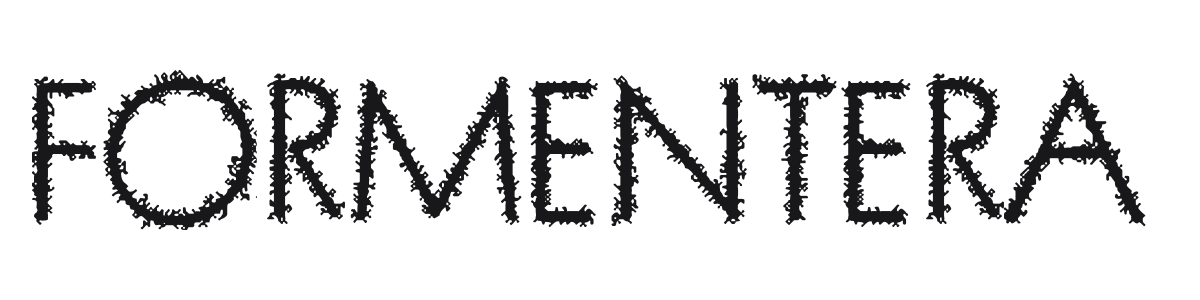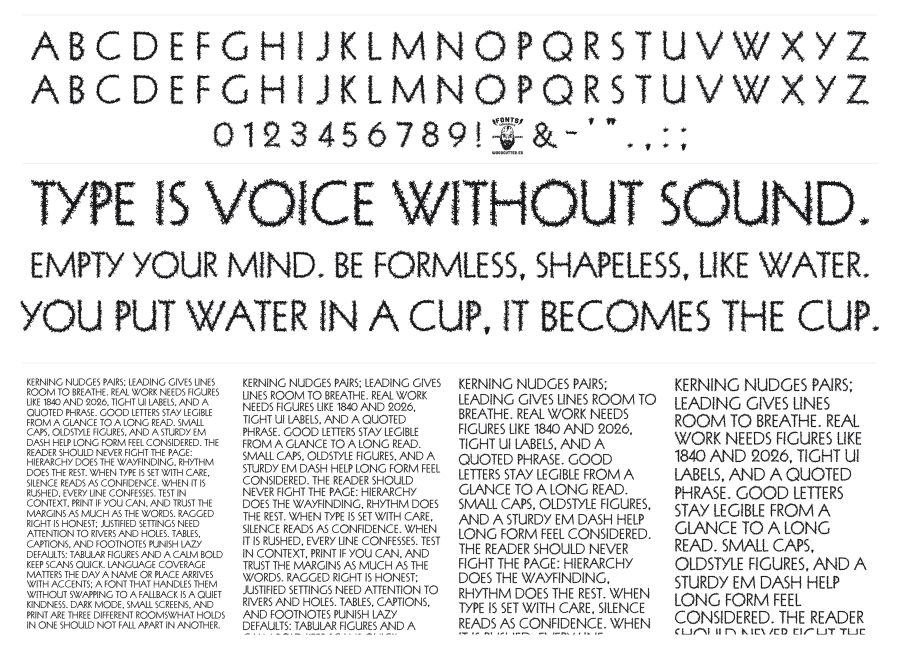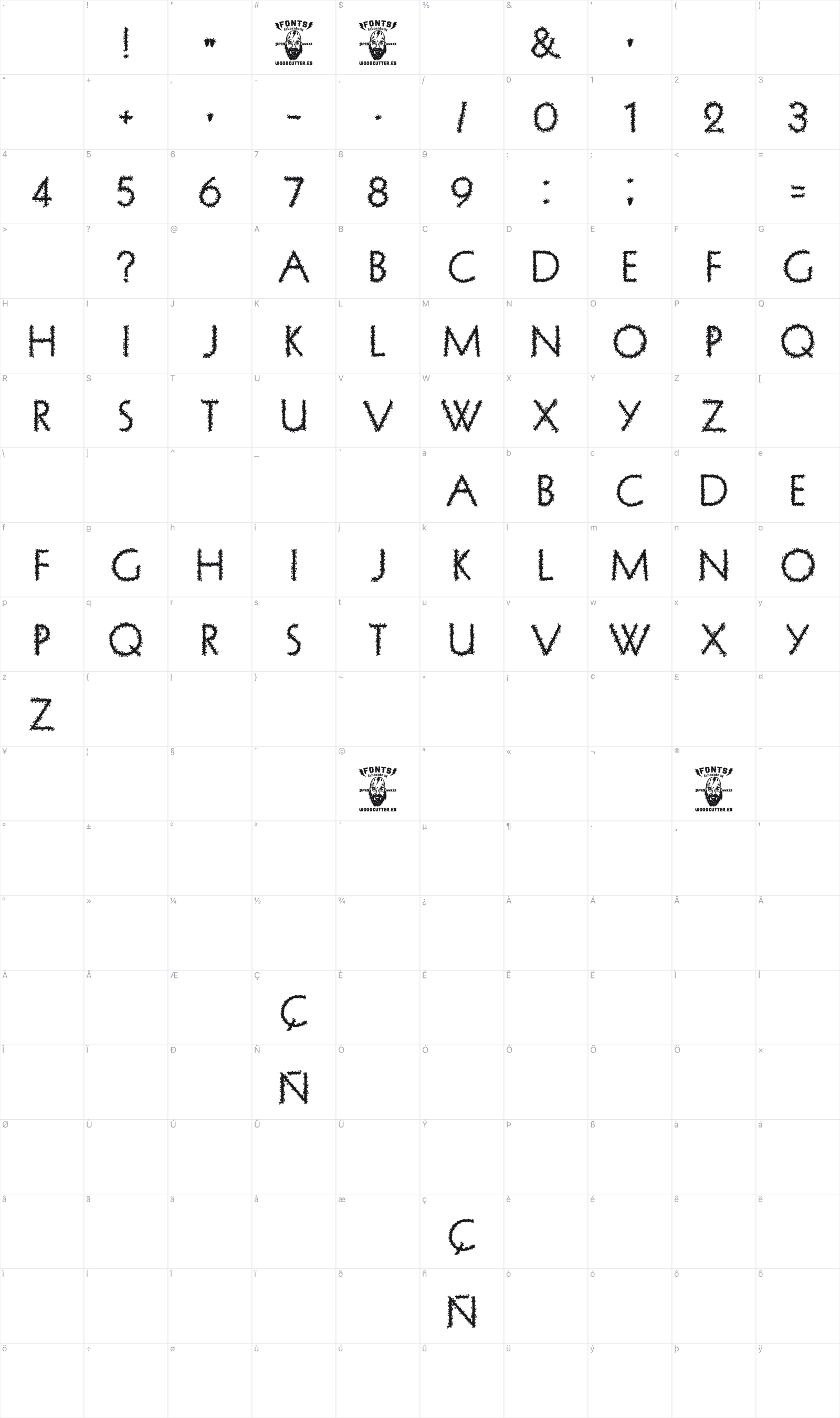
Formentera
Formentera is an eroded serif display face by Woodcutter Manero that treats classical Roman structure as a starting point and then drags it through something rough. Every stroke is furred and frayed, giving the overall design the texture of weathered stone or dried bark. It works at large sizes where the erosion reads as character rather than noise.